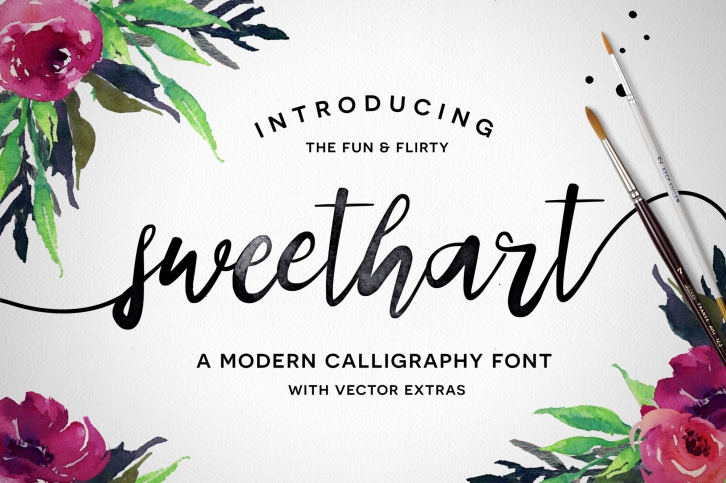
Sweethart is a great font that was designed by Flycatcher Design. Imagine the amount of combinations you can create using this font! The archive is 4.85 MB and it was released on April 14, 2016. Sweethart looks beautiful on wedding invitations, greeting cards, logos, posters, labels, t-shirt designs, logos, business cards and is perfect for use in ink or watercolor works, fashion, magazines, packaging and food menus, children's books and more!